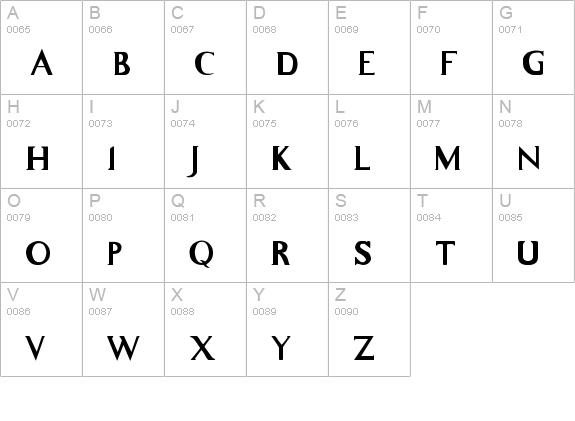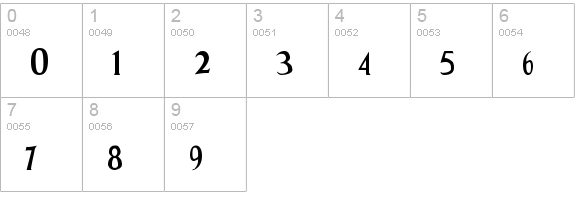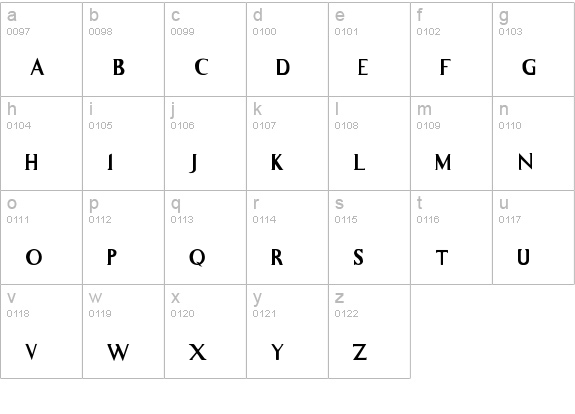
Gene font is a beautifully crafted typeface that exudes elegance and sophistication. Its clean lines and modern aesthetic make it perfect for a wide range of design projects, from branding to editorial layouts. The versatility of Gene font allows it to be used in both digital and print media, ensuring that your message will always be delivered with style and impact. What sets Gene font apart is not only its striking design, but also the fact that it is completely free to download at FontsMarket.com. This means that you can enhance your projects with this stunning typeface without having to worry about any additional costs. Whether you are a seasoned designer looking to add a fresh touch to your work or a newcomer eager to experiment with different fonts, Gene font is the perfect choice for all your design needs. Download it today and elevate your projects with this exceptional typeface.